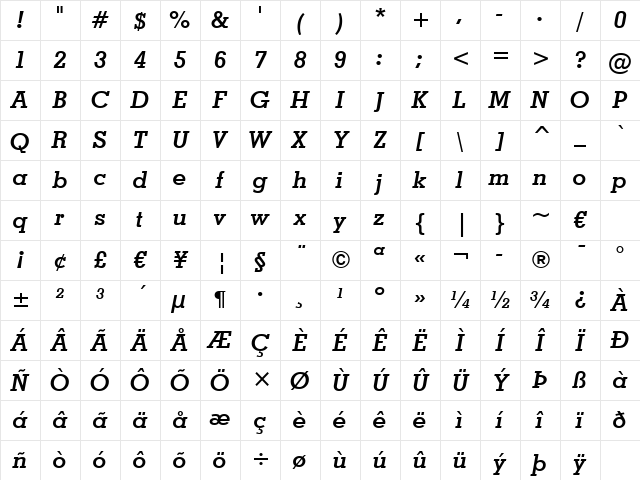
GeoSlab703 Md BT Bold Italic
GeoSlab703 Md BT Family
GeoSlab703 Md BT Bold Italic
Design Context for GeoSlab703 Md BT
GeoSlab703 Md BT features prominent, blocky serifs that give it a confident, grounded presence - equally at home in editorial settings and bold branding work. The slanted form adds forward momentum and visual energy. Its bold stroke weight gives it real presence on the page.
Pro Tip: Use GeoSlab703 Md BT for headlines and subheadings where its slab serifs can make an impression. It also holds up well in mid-size body copy thanks to its sturdy construction.